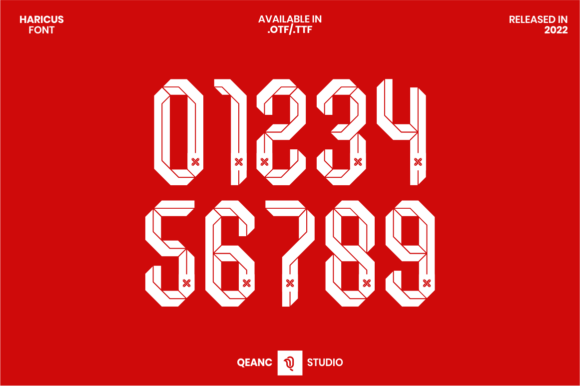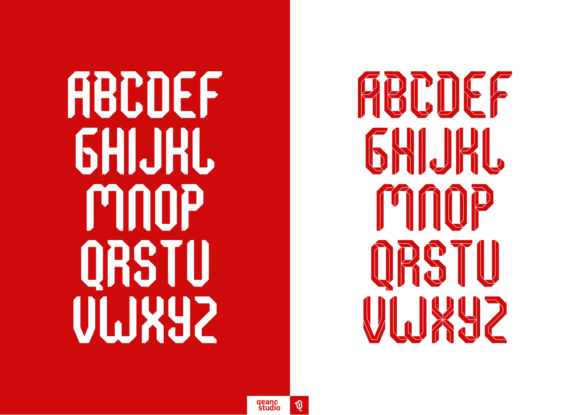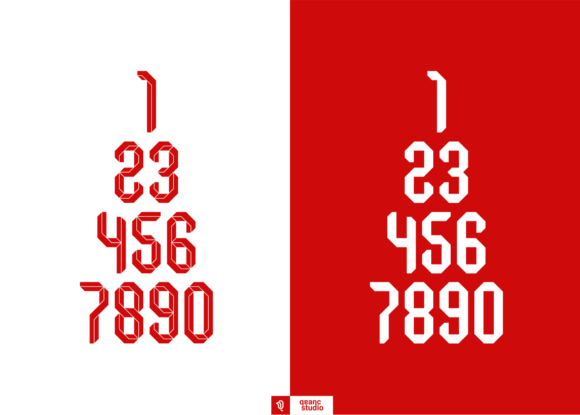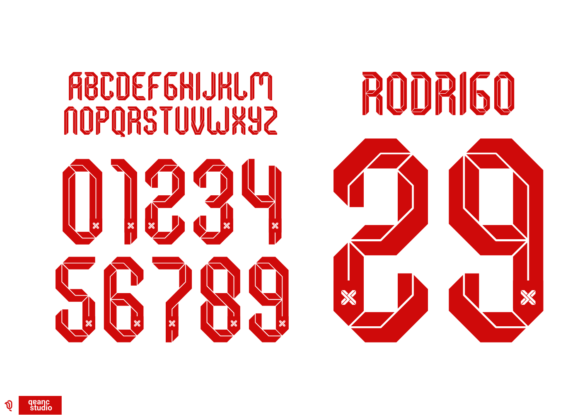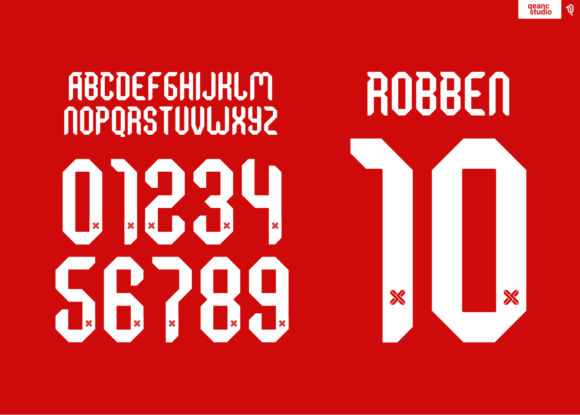
The Perfect Match for Your Next Sports-Themed Project
Have you ever stared at a blank canvas, brainstorming ideas for your next creative project, only to have a burst of inspiration hit you like a touchdown in the big game? For designers, those moments of clarity can be a game-changer. For sports enthusiasts, the thrill of competition is always in the air. And now, with the Harcus Font, you can capture that excitement on paper.
Conceived with football in mind, the Harcus Font is a cool display font designed to elevate your sports-themed projects. From logos to posters, and from t-shirts to billboards, this font is sure to make your designs stand out from the crowd. Its unique blend of style and functionality makes it an invaluable addition to any designer’s toolkit.
Key Features of Haricus Font
- Font Family: Haricus Font is a unique, modern sans-serif font family.
- Character Set: Haricus Font includes a comprehensive character set, including Latin, Cyrillic, and Greek alphabets, as well as punctuation and symbols.
- Unique Characteristics: Haricus Font features a distinctive x-height, with a subtle contrast between thick and thin strokes, giving it a clean and modern appearance.
Designer Review: Haricus Font
Overall, I’m quite impressed with the Haricus Font. It has a unique blend of elegance and sophistication, making it perfect for a wide range of applications.
- ✨ The font’s high x-height makes it easy to read, even at smaller sizes.
- ✨ The subtle flair at the end of each letter adds a touch of whimsy and personality to the font.
- ✨ The font’s versatility makes it suitable for both digital and print media.
- ⚠️ The font may not be as suitable for very large or very small text sizes, as the design may become distorted.
- ⚠️ The font’s complexity may make it difficult to use for very simple or straightforward designs.
- ⚠️ Some users may find the font’s flair at the end of each letter to be distracting or overwhelming.
Overall, I think Haricus Font is a great addition to any designer’s toolkit. While it may have some limitations, its unique blend of elegance and sophistication makes it a standout choice for many applications.
Tips for Getting the Most Out of Haricus Font
For best results, pair Haricus Font with bold, contrasting colors to create a striking visual effect. Use it for headings and titles to add a touch of sophistication and elegance to your designs.
Harcicus Font is perfect for:
- Creating elegant headings and titles
- Designing luxury branding materials
- Adding a touch of sophistication to digital presentations
Comparison: Avenir is more geometric and modern than Haricus Font, making it a good choice for designs that require a bold, modern look. However, it may not be as suitable for traditional or classic designs.
Open Sans is a clean and modern sans-serif font that is highly legible. It is suitable for use in digital media, including logos, headings, and body text. Open Sans is a good alternative to Haricus Font due to its similar modern aesthetic and clean design.